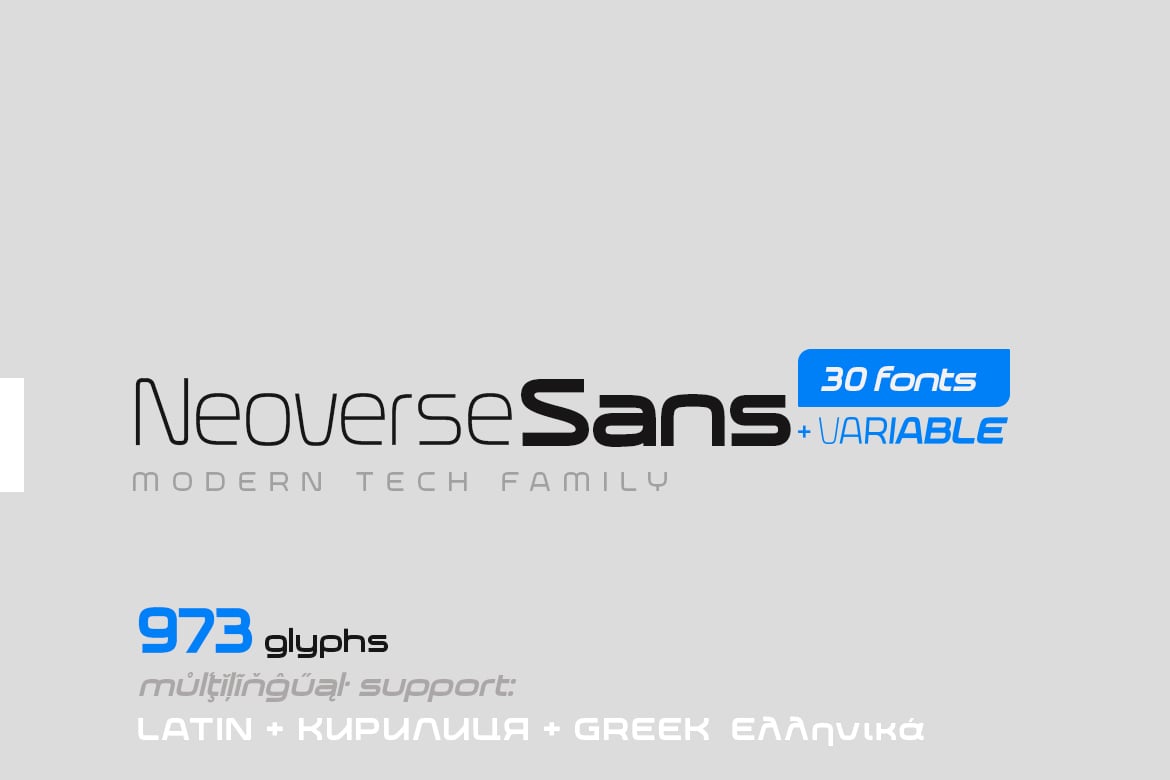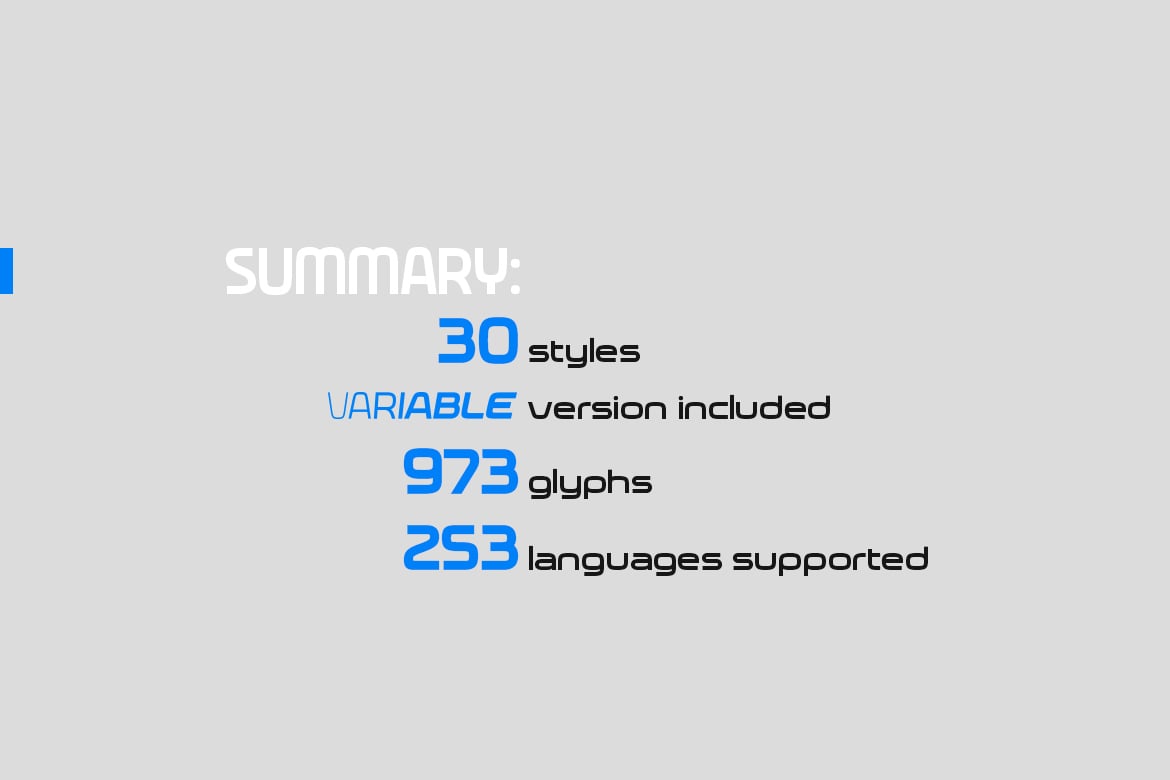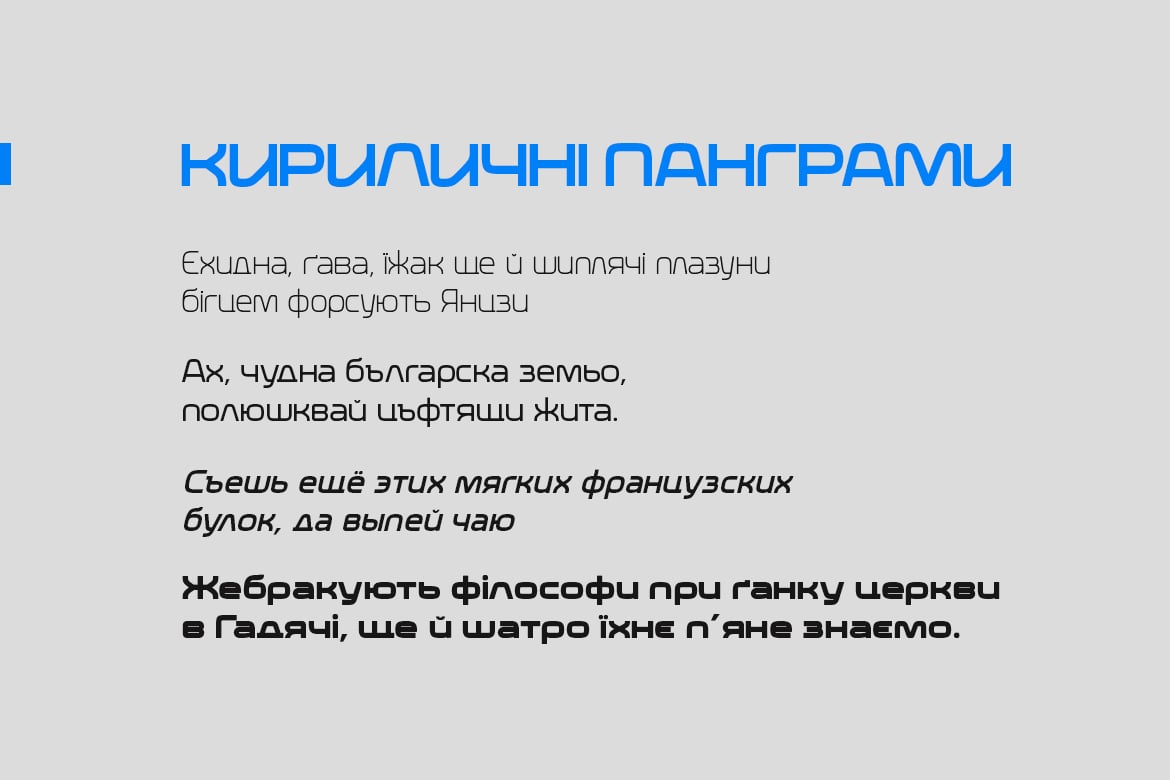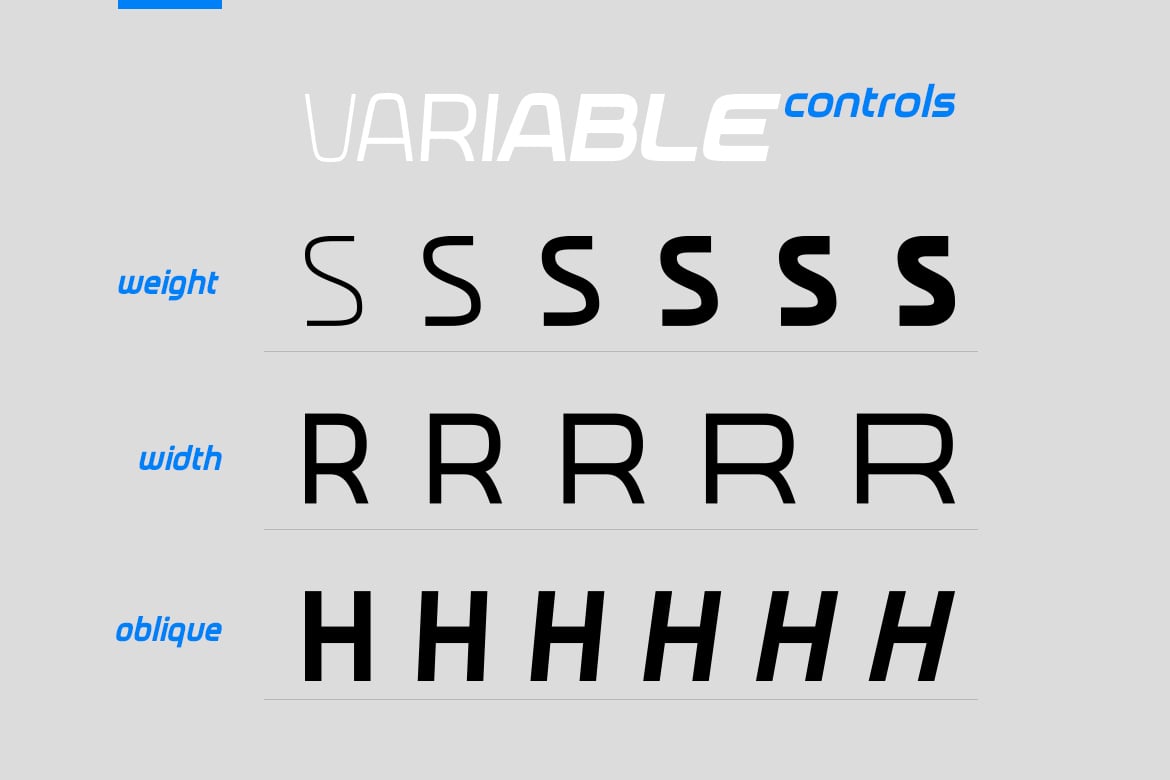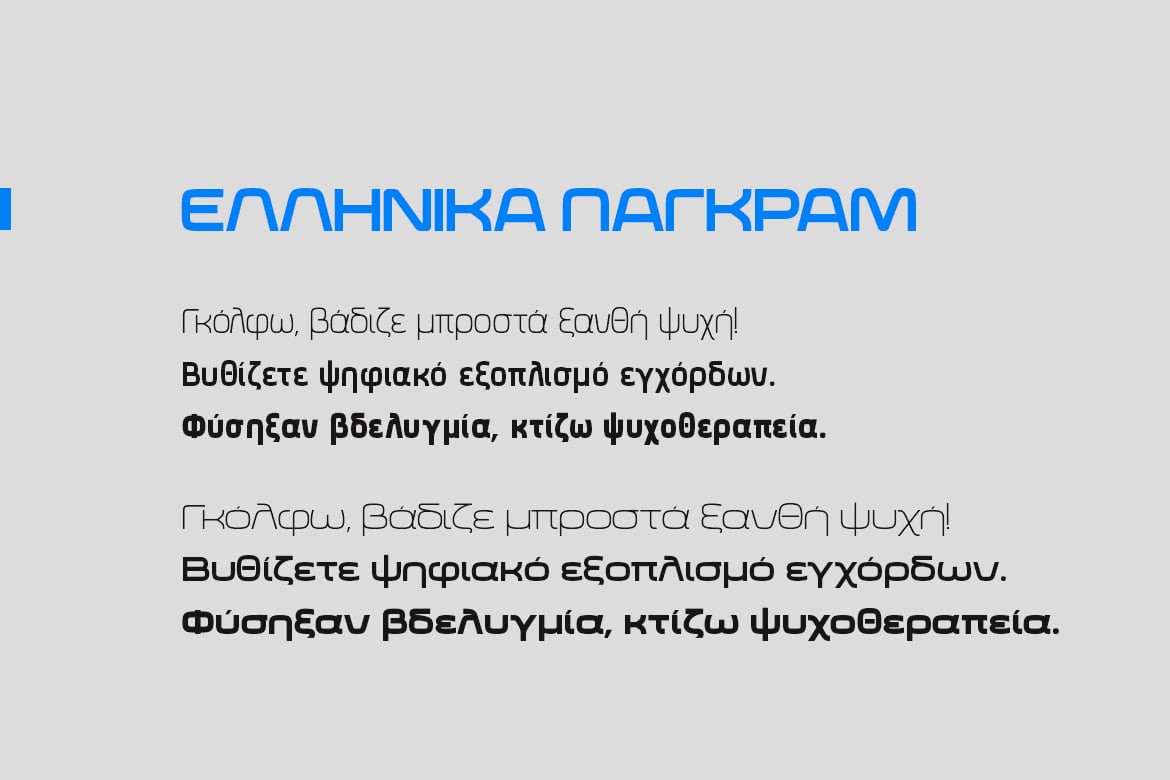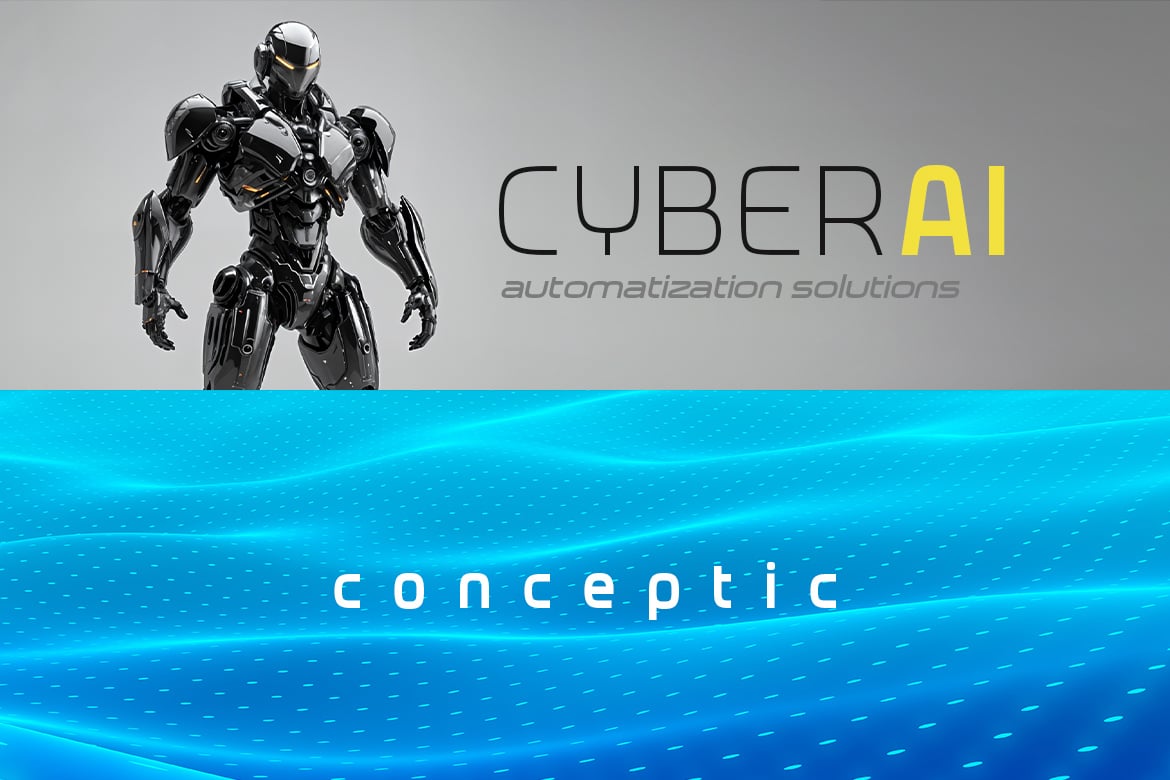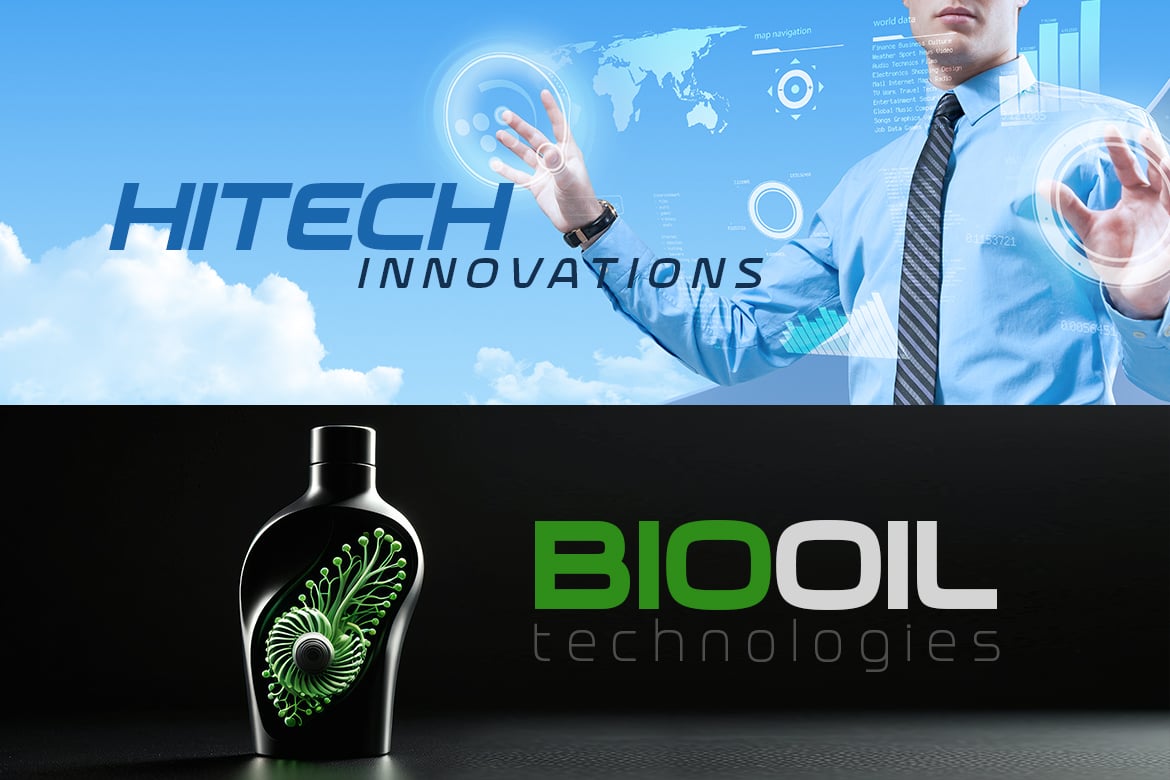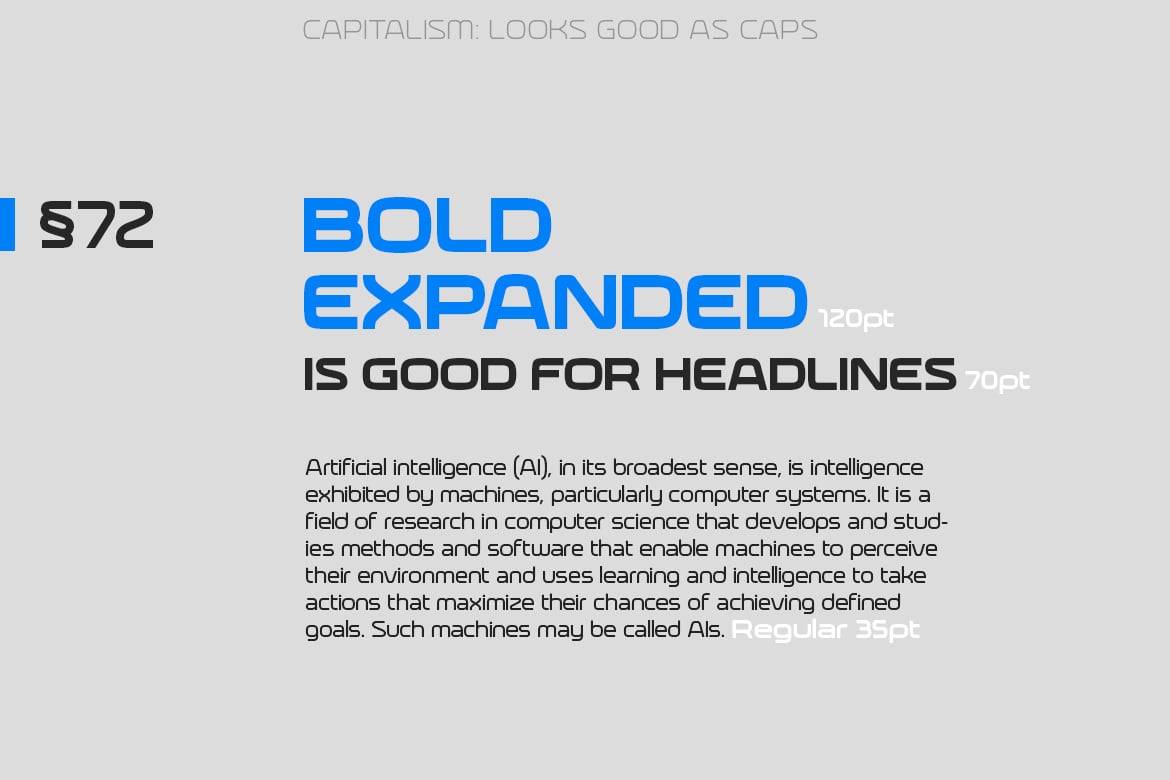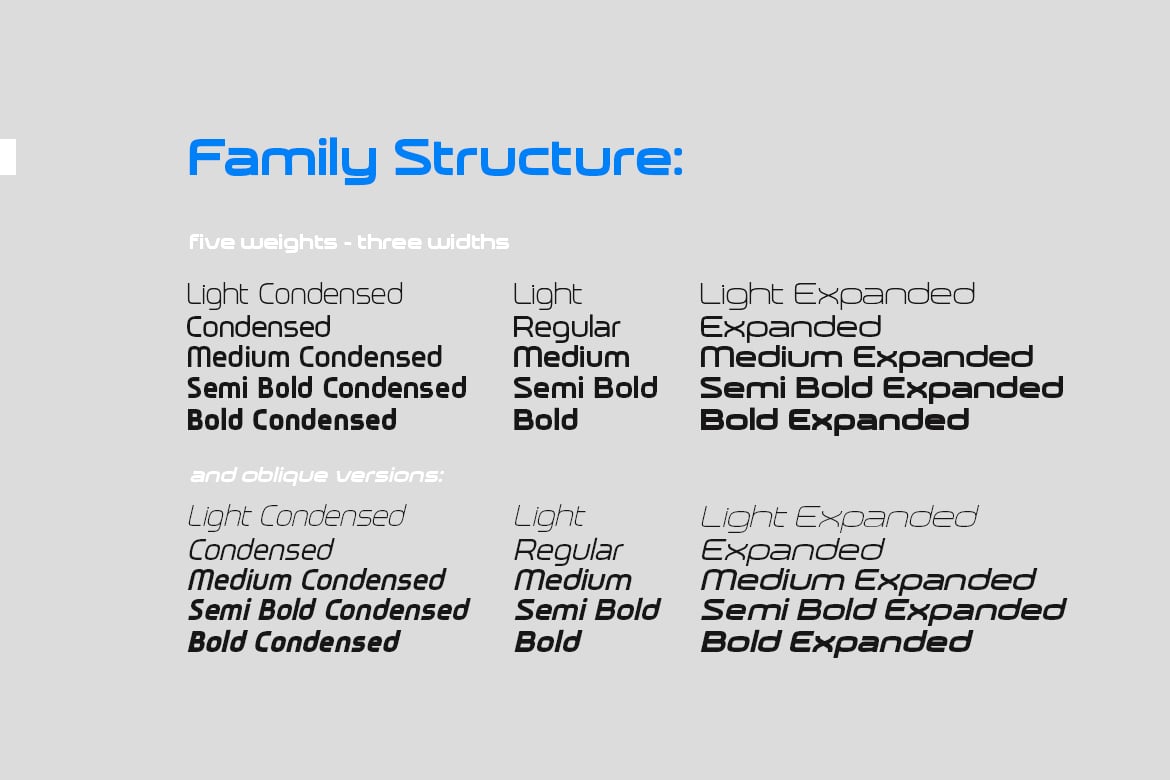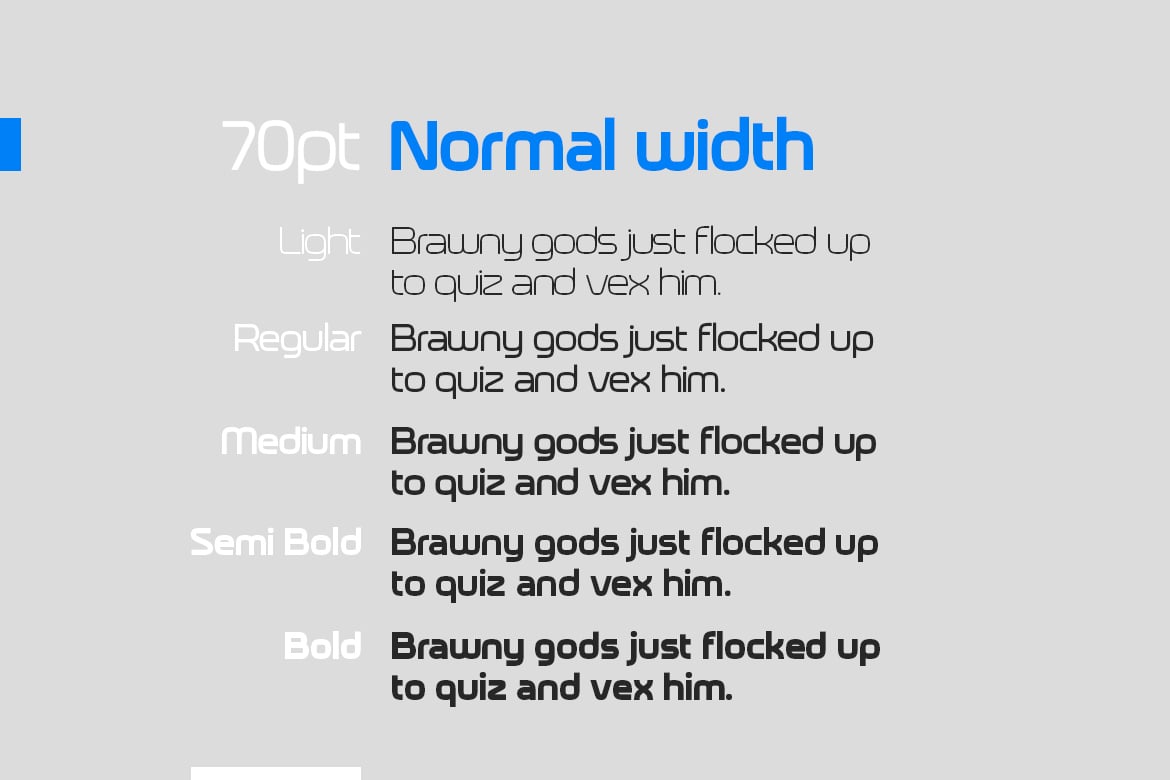
Neoverse Font Family
Neoverse Sans is hitech futuristic sans family with 30 fonts + 1 Variable.
With a clean, simple, and minimal aesthetic, Neoverse Sans is a functional workhorse with 5 weights and 3 Width, complete Latin extended language support, Cyrillic and Modern Greek Languages support, precise hand-adjusted kerning, and a Variable version for maximum versatility.
Supported Languages (inc. all Latin, Cyrillic, Modern Greek):
Afar, Afrikaans, Aragonese, Mapuche, Asu, Asturian, Azeri, Belarusian, Bemba, Bena, Bosnian, Bulgarian, Catalan, Cebuano, Chiga, Corsican, Czech, Welsh, Danish, Taita, German, Zarma, Lower Sorbian, Jola-fonyi, Embu, Greek, English, Esperanto, Erzya, Estonian, Basque, Finnish, Filipino, Faroese, French, Friulian, Western Frisian, Irish, Scottish Gaelic, Galician, Swiss German, Gusii, Manx, Croatian, Upper Sorbian, Hungarian, Interlingua, Indonesian, Igbo, Ido, Icelandic, Italian, Lojban, Machame, Jju, Kamba, Tyap, Makonde, Kabuverdianu, Kaingang, Koyra Chiini, Kikuyu, Kalaallisut, Kalenjin, Shambala, Colognian, Kurdish, Cornish, Latin, Luxembourgish, Ganda, Ligurian, Lithuanian, Luo, Luyia, Latvian, Meru, Morisyen, Macedonian, Malagasy, Makhuwa-meetto, Maori, Malay, Maltese, Norwegian Bokmål, North Ndebele, Low German, Dutch, Norwegian Nynorsk, Norwegian, South Ndebele, Northern Sotho, Navajo, Nyanja, Nyankole, Occitan, Oromo, Nigerian Pidgin, Polish, Portuguese, Romansh, Rundi, Romanian, Rombo, Russian, Kinyarwanda, Rwa, Samburu, Sangu, Sardinian, Sicilian, Northern Sami, Koyraboro Senni, Sango, Sidamo, Slovak, Slovenian, Spanish, Southern Sami, Lule Sami, Inari Sami, Shona, Somali, Albanian, Swati, Saho, Sena, Serbian, Soga, Southern Sotho, Sundanese, Swedish, Swahili, Silesian, Teso, Turkmen, Tswana, Turkish, Taroko, Tsonga, Tasawaq, Ukrainian, Vietnamese, Volapük, Vunjo, Walloon, Walser, Warlpiri, Wolof, Xhosa, Zulu